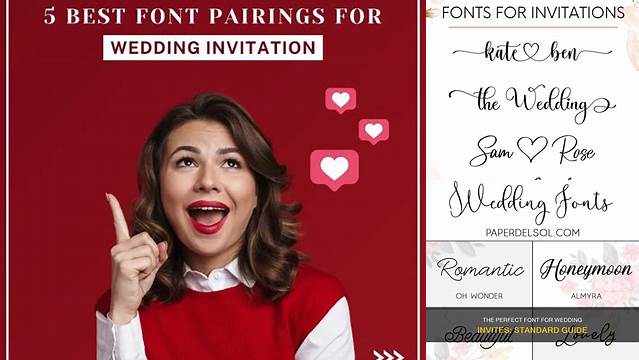
Wedding Invitation Fonts: Your Ultimate Guide
Hey there, future newlyweds! Planning a wedding is a whirlwind of decisions, from choosing the perfect venue to selecting the tastiest cake. One of the most exciting, and sometimes overwhelming, aspects is designing your wedding invitations. These aren't just pieces of paper; they're the first glimpse your guests get of your big day. And the fonts you choose play a massive role in setting the tone and style of your entire wedding. So, let's dive into the wonderful world of wedding invitation fonts and explore how to find the perfect ones for you!
Why Fonts Matter for Your Wedding Invitations
Alright, let's be real, guys: You might be thinking, "Fonts? Really? Isn't the content more important?" Well, yes, but the fonts are the unsung heroes of your wedding stationery. They're the visual language that whispers your wedding's personality. Think of your wedding invitation as a mini-masterpiece. The fonts are the brushstrokes that bring your vision to life! They speak volumes about your style, whether you're aiming for classic elegance, modern chic, rustic charm, or something totally unique.
- Setting the Tone: The right font can instantly convey the mood of your wedding. A delicate script might suggest a romantic, fairytale wedding, while a bold, modern font could hint at a contemporary celebration. The choices that you make play a huge role in determining the mood of your wedding, and are therefore some of the most important choices you can make. In addition, all the choices you make can set the tone of your wedding. Imagine a font that is very basic and plain, it may give the guest the perception that the wedding will also be simple and plain. Similarly, a very fancy and elaborate font will convey the image that the wedding will also be an elaborate event. So, fonts are important for setting the tone.
- Enhancing Readability: You want your guests to actually, you know, read your invitation, right? Choosing fonts that are easy on the eyes is crucial. You don't want your loved ones squinting and struggling to decipher the details. Selecting fonts that are easy to read can sometimes become a bit tricky since the font that you personally like might not be very easily read by others. In addition, you might not like the look of some of the fonts that are most readable. If you have any doubts about the fonts that you are selecting, it is always best to test the fonts by asking someone else to read them. If they have a difficult time reading the font, then you might want to consider selecting another font.
- Reflecting Your Style: Your wedding invitations are an extension of you. They should reflect your personality as a couple. Do you love vintage vibes? A classic serif font could be your go-to. Are you all about clean lines and modern design? A sans-serif font might be the perfect fit. You can also use the fonts to show the style of your wedding. You can use modern fonts, calligraphy fonts, and many more. The possibilities are endless! It is always best to take your time and decide which font or fonts you would like to use. If you need any assistance, there are many experts available who can guide you. Using fonts is an excellent way to set your wedding apart from others. So make sure you do your research to use the fonts that are right for you.
Understanding Font Types: A Quick Guide
Okay, let's get down to the basics. There are tons of font types out there, but they generally fall into a few main categories. Knowing these will help you narrow down your choices like a pro.
- Serif Fonts: Think of these as the traditional, classic fonts. They have little "feet" or strokes at the end of each letter. Serif fonts are known for their elegance and readability. They're great for conveying a sense of formality and tradition. Some popular serif fonts for wedding invitations include Times New Roman, Garamond, and Baskerville. When selecting serif fonts, be sure to also test their readability. Although most of these fonts are very legible, they can sometimes have a fancy twist to them that makes them difficult to read. So, testing is always very important, even if the font is considered a classic.
- Sans-Serif Fonts: As the name suggests, these fonts don't have those little feet. They're clean, modern, and easy to read, making them a great choice for a contemporary or minimalist wedding. Sans-serif fonts offer a sleek and sophisticated look. Some popular sans-serif fonts are Helvetica, Arial, and Futura. These fonts are very popular in websites and in other areas. They can also be very versatile since they can be used in different areas and in many different events.
- Script Fonts: These fonts mimic handwriting, offering a romantic and elegant touch. They can range from delicate and flowing to bold and dramatic. Script fonts are ideal for adding a personal touch to your invitations. However, make sure they are legible! Some beautiful script fonts can be difficult to read, so choose wisely. Some of the popular ones are Brush Script, and Scriptina. These fonts can sometimes be difficult to read, especially if they have too much elaboration and flair. So, it is always best to have a test run to make sure the people who you would like to invite can read them.
- Display Fonts: These are the showstoppers! Display fonts are used for headings and accent text. They are decorative and unique, adding personality to your invitations. However, use them sparingly, as they can be less readable for body text. There are many display fonts available, so you should be able to find a font that is perfect for your needs. Display fonts can also have various themes, ranging from whimsical to plain. If you're not certain which font to use, you can always consult with an expert.
Matching Fonts with Your Wedding Style
Now for the fun part: finding fonts that match your wedding style! Here are some ideas to get you started.